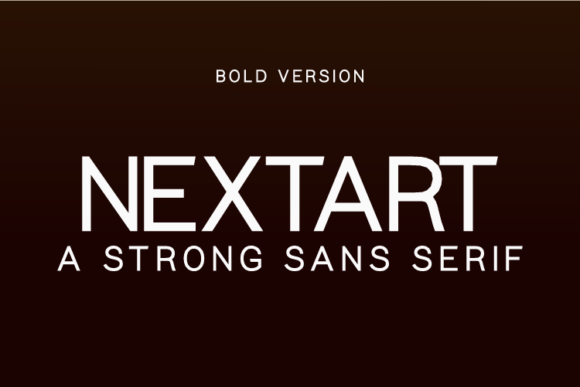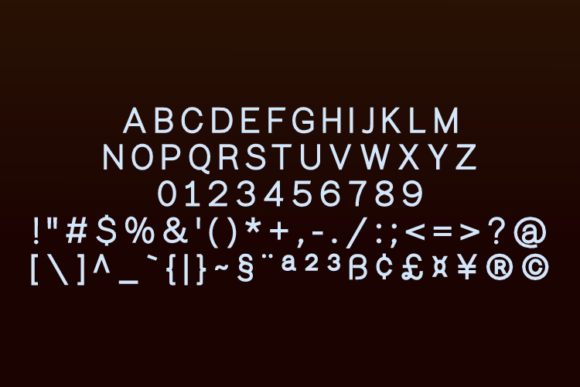
HomeSans Serif FontsNextart Bold Font Sans Serif Fonts Nextart Bold Font FacebookXPinterestWhatsApp Nextart Bold Font 1 of 2 About Nextart Bold Font Nextart is a romantic, timeless, and minimalistic all caps sans serif font that looks stunning in any context. It’s perfect for magazine layouts, invitations, headers, or even large-scale artwork. DOWNLOAD NOW People also explored Massterdam Fontera Font Mondany Font Outside Font No Entry JNL Font Acsia Tu Font Bottam South Font Bridget Font Minimalist Font Pamithais Script Font 2521 0 TagsNextart Bold Font Previous articleNextart Extra Bold FontNext articleNextart Semi-Bold Font LEAVE A REPLY Cancel reply Comment: Please enter your comment! Name:* Please enter your name here Email:* You have entered an incorrect email address! Please enter your email address here Website: Save my name, email, and website in this browser for the next time I comment. Personal Use Free Pelmeshka Personal Use Free Read more about this font Sellena Brush Font Personal Use Free Read more about this font Romantic February Personal Use Free Read more about this font Hello Sister Personal Use Free Read more about this font BLOG How to Cut Any Font on Cricut: Convert a Font to SVG (Free) Turn any font into a clean SVG so it cuts crisp on Cricut - a quick 3-step workflow using a free font-to-SVG tool. 5 Fonts That Will Dominate Design Trends in 2026 Modern Sans-Serif Fonts That Brands Love in 2025 Top 7 Google Fonts Alternatives for Faster and Privacy-Friendly Web Design (2025)